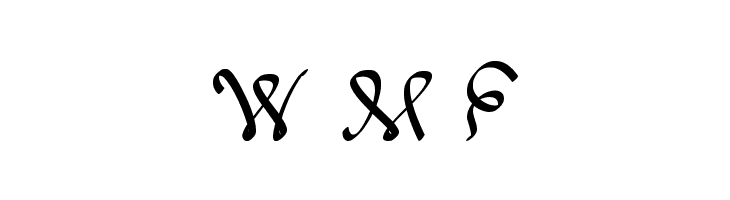
A distressed, vintage typewriter-style serif font with a textured, stamp-like appearance.
( Fonts by 97Designs )
A casual, handwritten-style font with a natural, flowing appearance.
A whimsical, hand-drawn font with flowing, cursive-like letters.
A bold, brush-style font with dynamic, hand-painted strokes.
( Fonts by Cannot Into Space Fonts )
A delicate, hand-drawn font with thin, flowing lines and a casual handwritten style.
( Fonts by Kristy Hatswell )
A playful, hand-drawn outlined font with a whimsical and approachable style.
( Fonts by Génesis Toxical )
A playful, hand-drawn font with a whimsical and friendly style.
A playful, casual handwritten font with dynamic strokes.
A handwritten, italic-style font with a casual and organic flow.
A dotted cursive font for handwriting practice.
( Aleksandar Stevanov - www.behance.net/Stevanov )
A vintage typewriter-style font with a classic, worn look.
( Attila Acs - attilaacs.com )
A distressed, typewriter-style font with a vintage, rugged appearance.
( Canale Studio, Inc. - Thomas Canale )
A bold, distressed serif font with a vintage typewriter style.
( CloutierFontes - Steve Cloutier - www.cloutierfontes.ca/ )
A vintage, typewriter-inspired serif font with bold, irregular strokes.
( Dave Panfili - www.davalign.com )
A playful and dynamic handwritten font with fluid, irregular strokes.
( JibbaJabba Fonts - Jibba Jabba - pages.suddenlink.net/jasonarthur/ )
A vintage, distressed typewriter-style font with an italic slant.
( Volker Busse - F25 Digital Typeface Design - Volker Busse - www.grafikkontor-mitte.de )
A blackletter font with a typewriter texture, combining historical elegance with a vintage feel.
( Writ Large - www.writlargefonts.com )
A playful, handwritten font with bold, dynamic strokes and a whimsical style.
A vintage, typewriter-style font with a hand-drawn, nostalgic feel.
( CRU-Jeelada )
A bold, italic, hand-drawn font with a playful and informal style.
( Font Environment - www.fontenvironment.com/ )
A calligraphic mirror writing font with elegant curves and historical charm.
( Jean Douteau - perso.orange.fr/jm.douteau/ )
A dotted, handwriting practice font ideal for educational use.
( Joorgemoron@gmail.com )
A bold, monospaced typewriter-style font with a vintage feel.